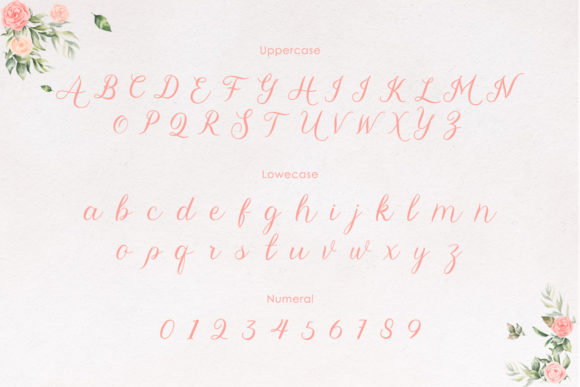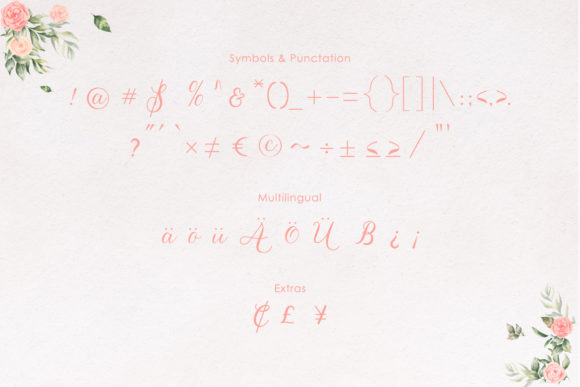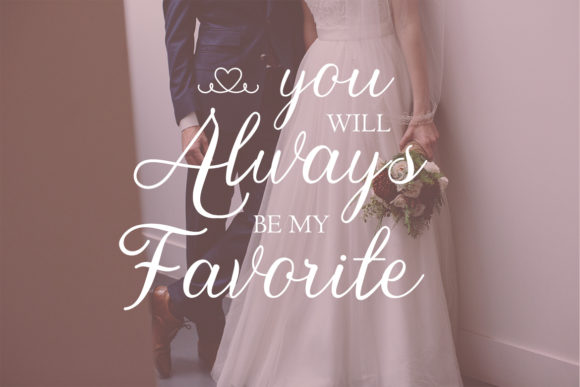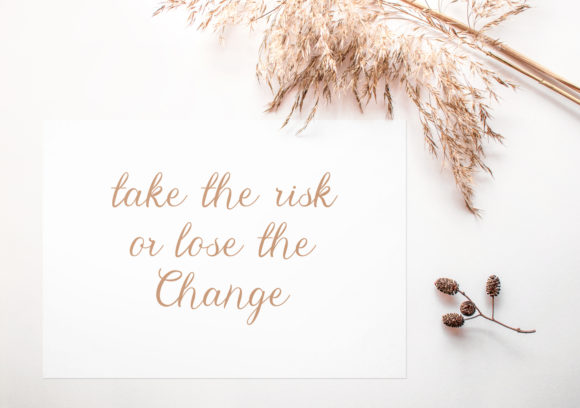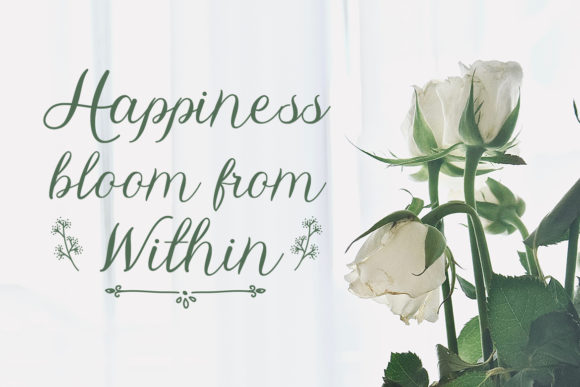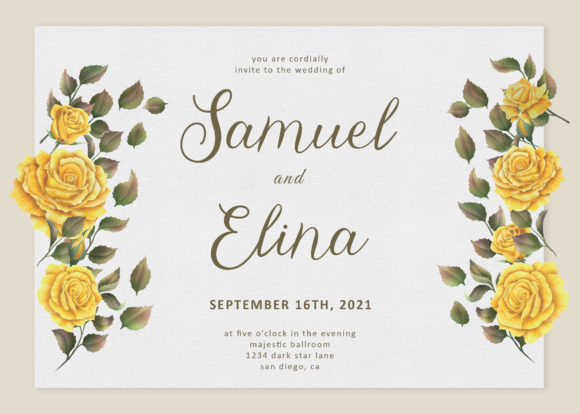
Introducing Abilane Font: Elevate Your Designs with Elegance and Sophistication
In the world of typography, fonts play a crucial role in conveying the tone and personality of a design. For designers and crafters looking to add a touch of elegance and sophistication to their work, Abilane Font is an excellent choice. This lovely and elegant calligraphic font is perfect for creating eye-catching logos, branding, and quotes that will leave a lasting impression.
The Unique Charm of Abilane Font
Abilane Font boasts a distinctive and beautiful touch, setting it apart from other fonts. Every letter is carefully crafted to exude a sense of luxury and refinement, making it ideal for designs that require a high level of sophistication. Whether you’re working on a logo, branding, or quote, Abilane Font will add a touch of elegance and poise to your work.
Abilane Font is a versatile font that can be used in a variety of design applications. Designers will love the font’s flexibility and ability to adapt to different styles and themes. Crafters, on the other hand, will appreciate the font’s elegance and sophistication, which will add a professional touch to their work.
Key Features of Abilane Font
- Elegant Calligraphic Style: Abilane Font features a beautiful calligraphic style that is perfect for creating sophisticated designs.
- Unique Letterforms: Every letter in Abilane Font has a unique and beautiful touch, making it perfect for creating eye-catching designs.
- Highly Versatile: Abilane Font can be used in a variety of design applications, from logos and branding to quotes and more.
- Easy to Read: Despite its elegant style, Abilane Font is easy to read, making it perfect for designs that require a high level of legibility.
Tips for Getting the Most Out of Abilane Font
- Use it for Headlines: Abilane Font is perfect for headlines and titles, where its elegance and sophistication can really shine.
- Pair it with Other Fonts: Experiment with pairing Abilane Font with other fonts to create a unique and interesting look.
- Use it for Branding: Abilane Font is perfect for branding applications, such as logos and business cards, where its elegance and sophistication can help to create a professional image.
Abilane Font is a beautiful and elegant calligraphic font that is perfect for designers and crafters looking to add a touch of sophistication to their work. With its unique letterforms, highly versatile design, and ease of use, Abilane Font is an excellent choice for creating eye-catching logos, branding, and quotes. So why not give it a try and see how it can elevate your designs?
Whether you’re a professional designer or a crafter looking to add a touch of elegance to your work, Abilane Font is a great addition to your font library. Its timeless beauty and versatility make it a font that will be used for years to come.